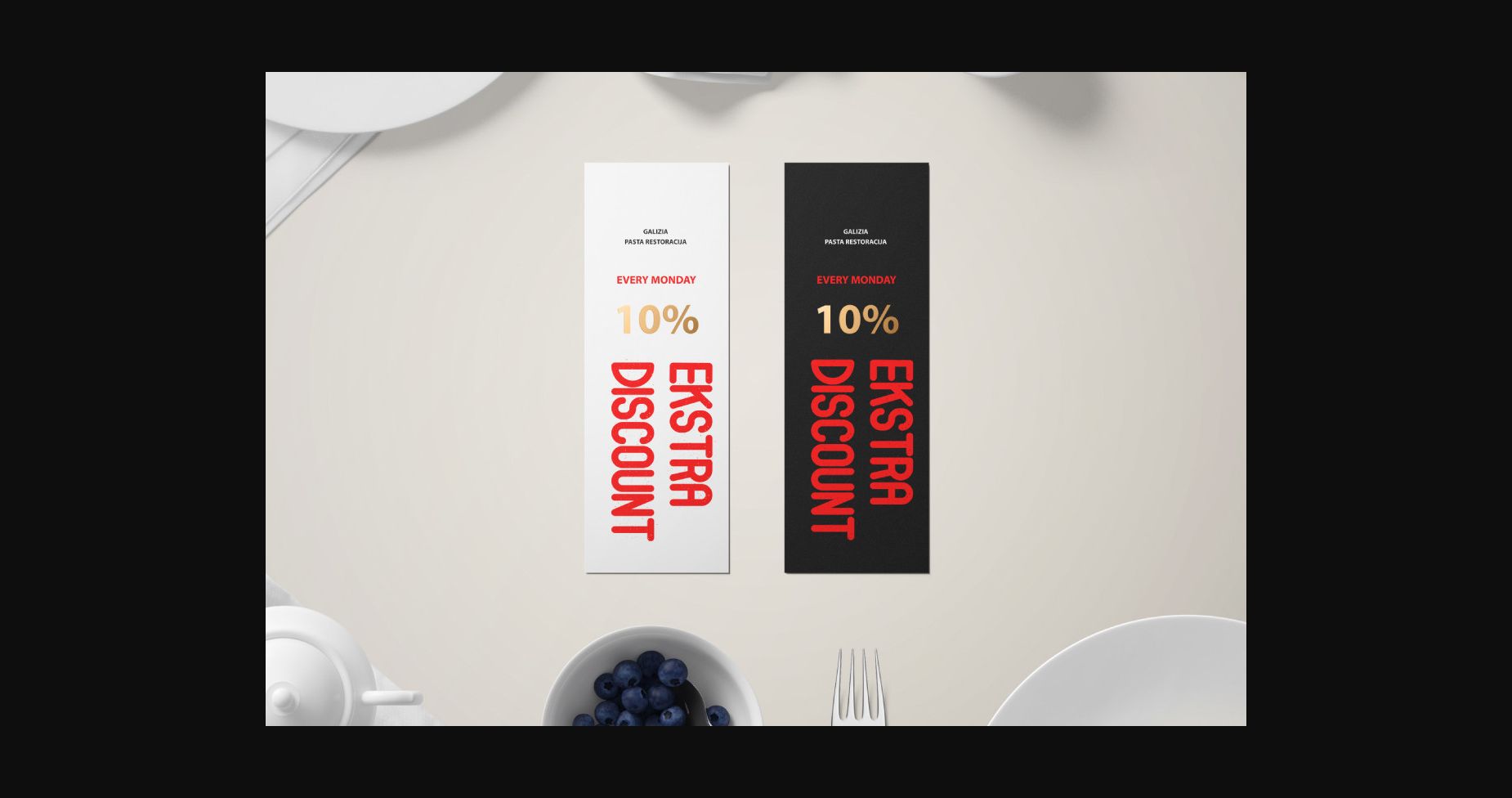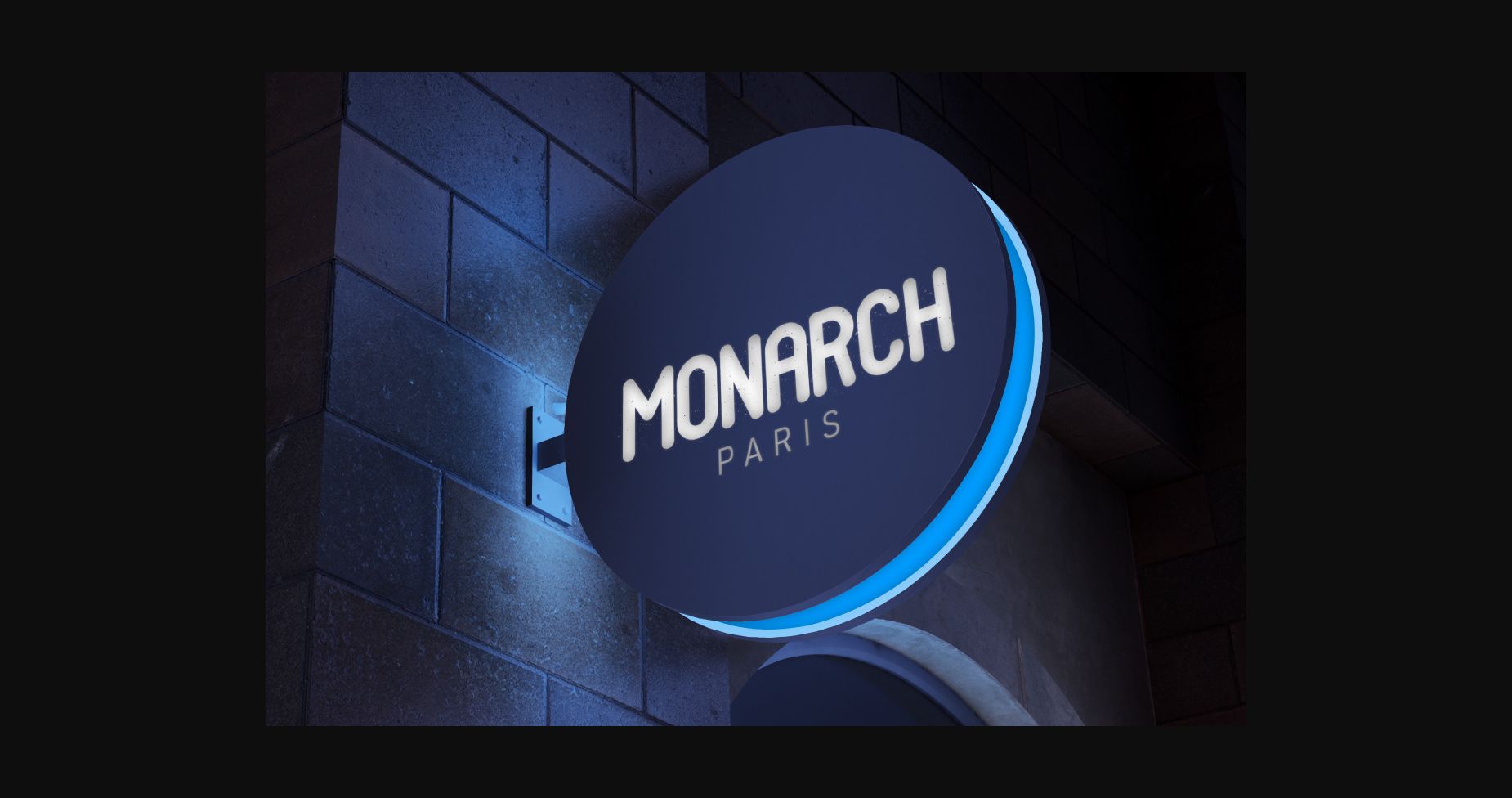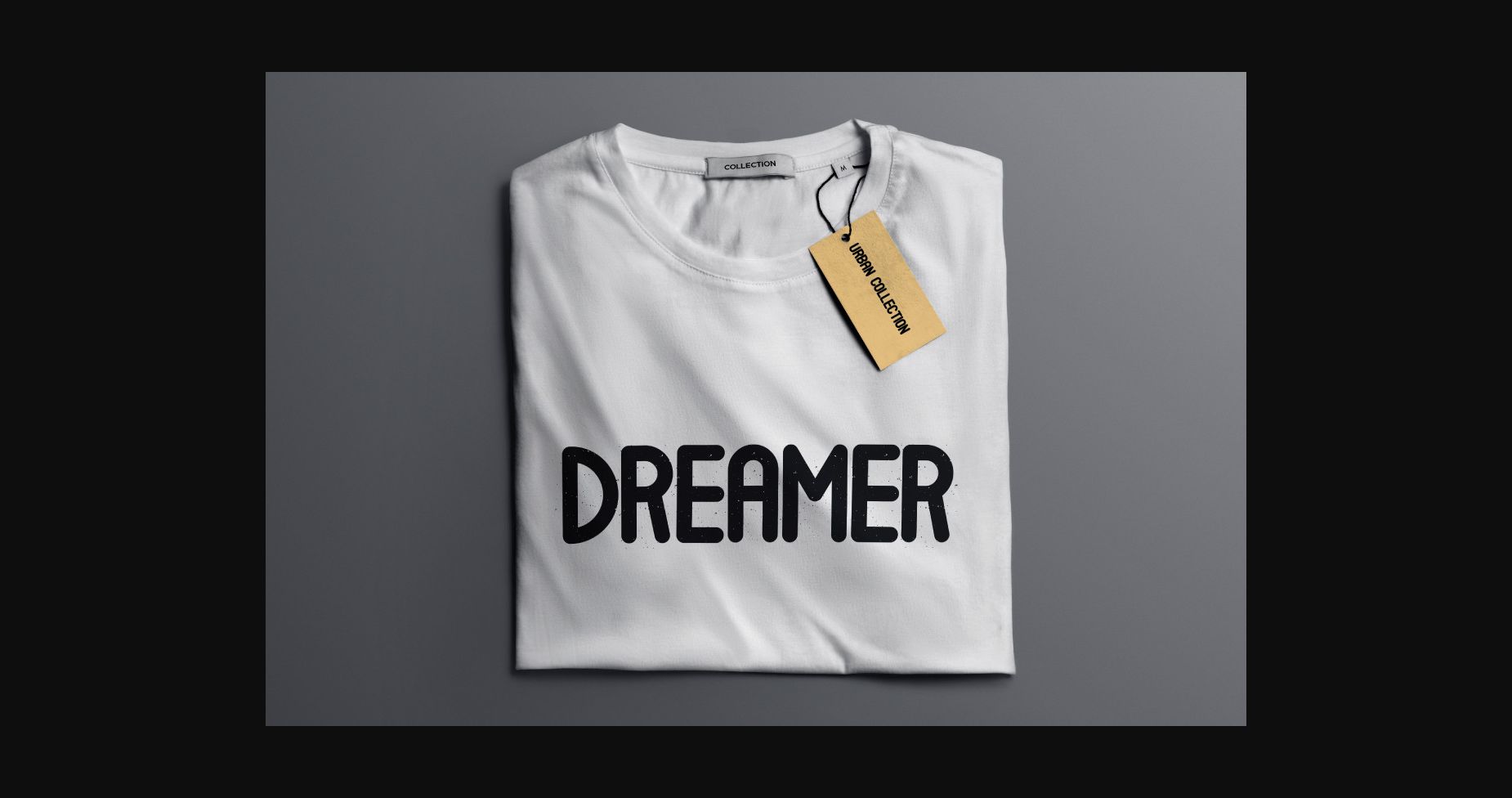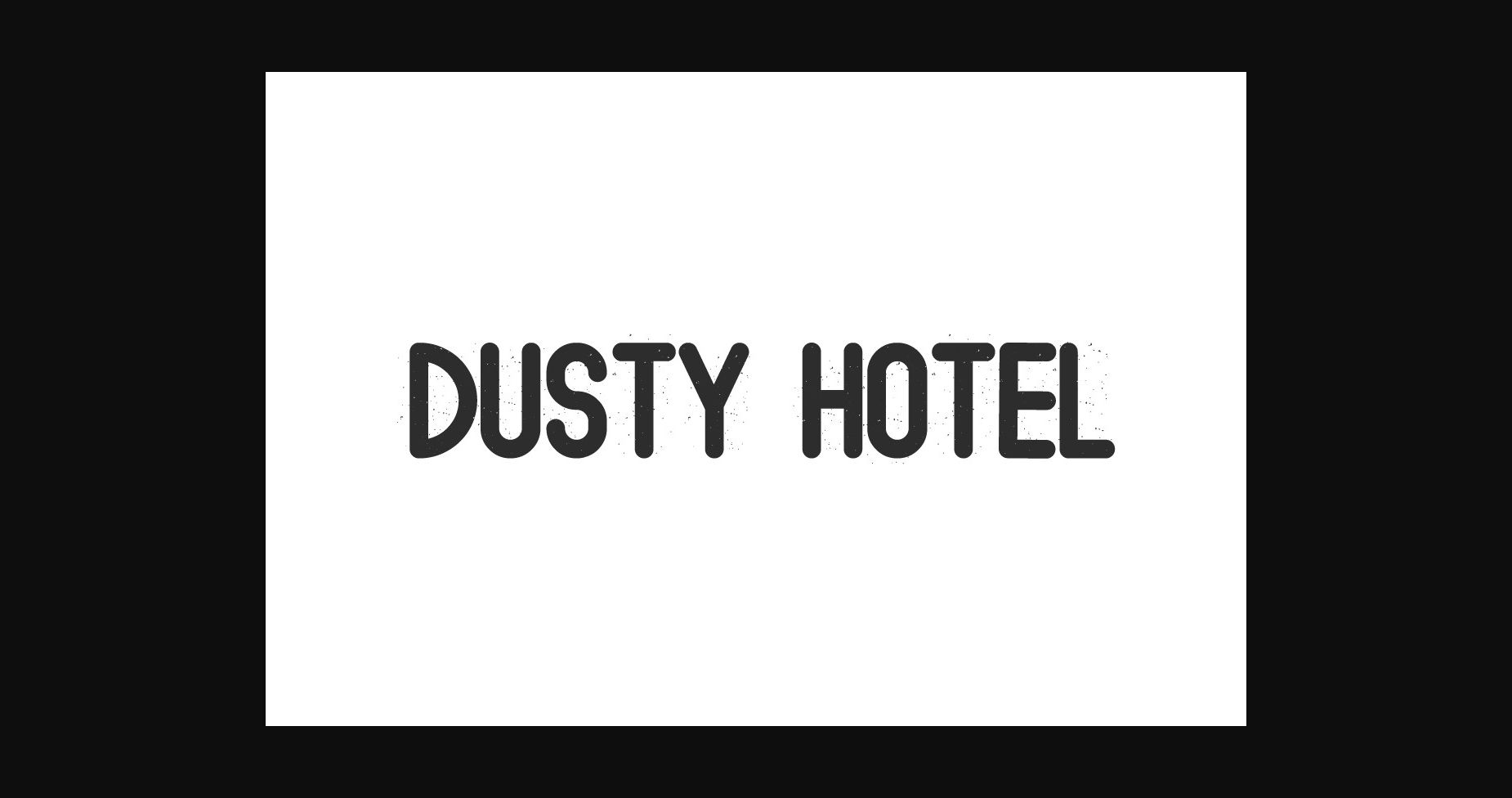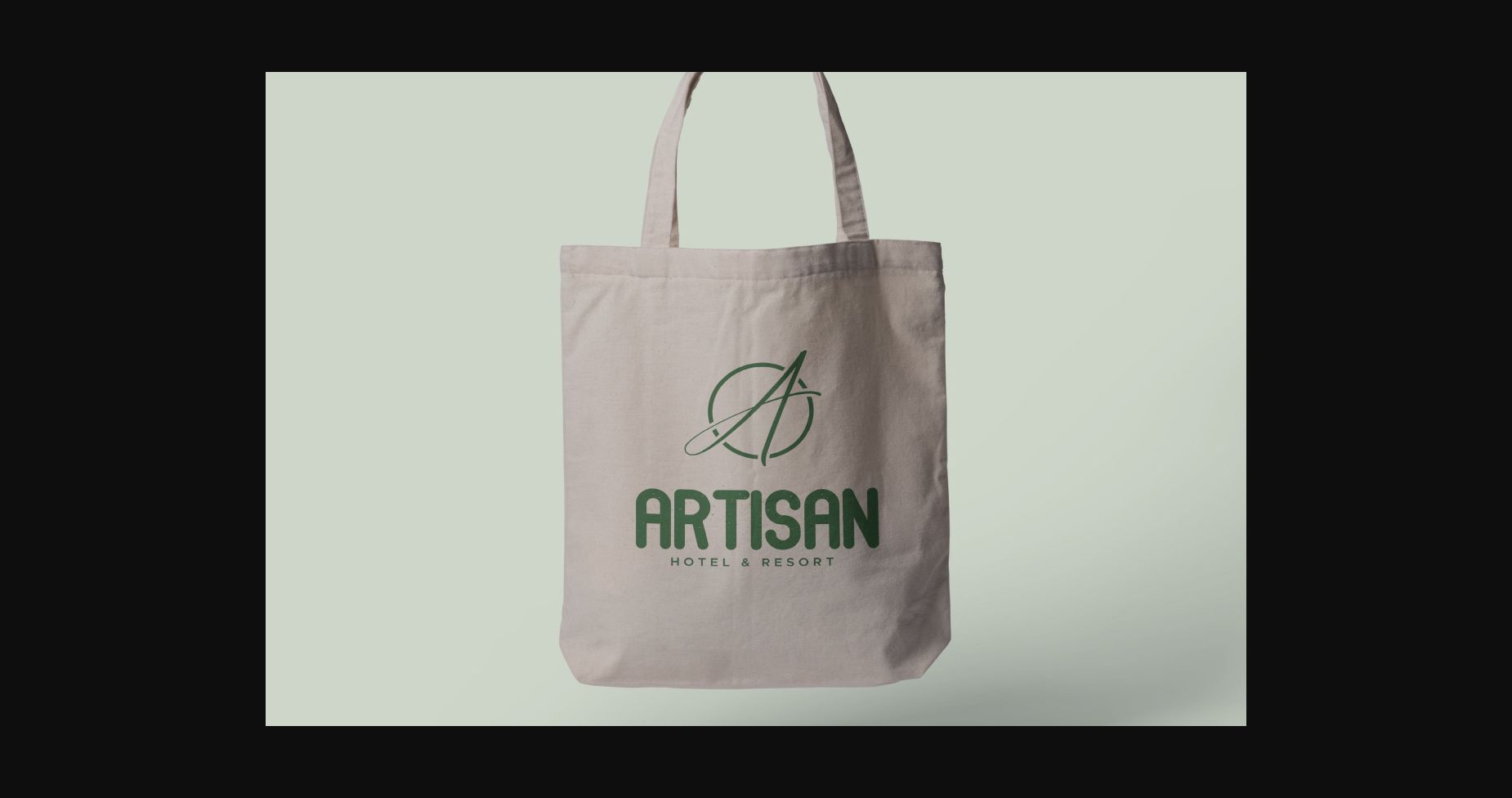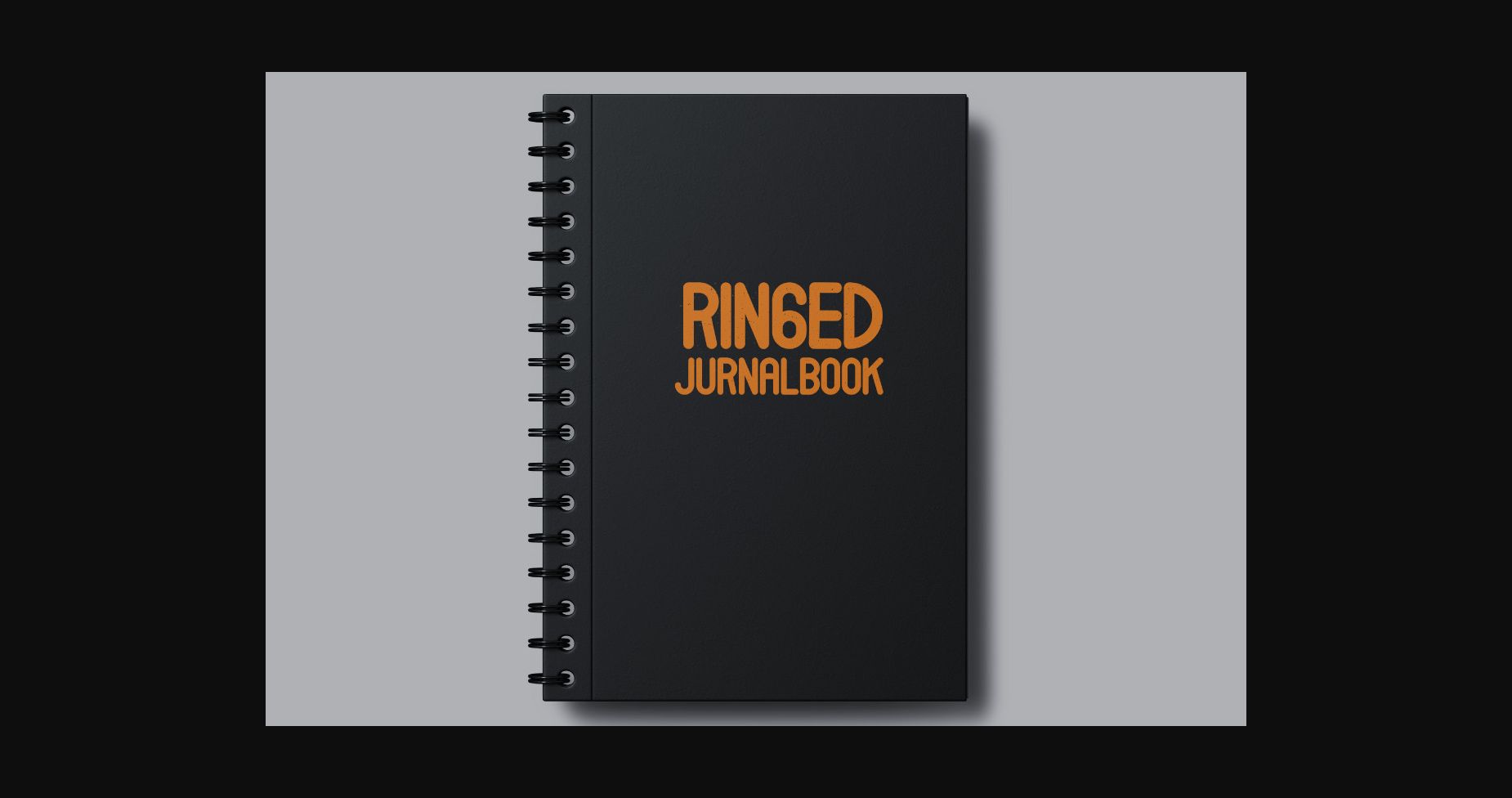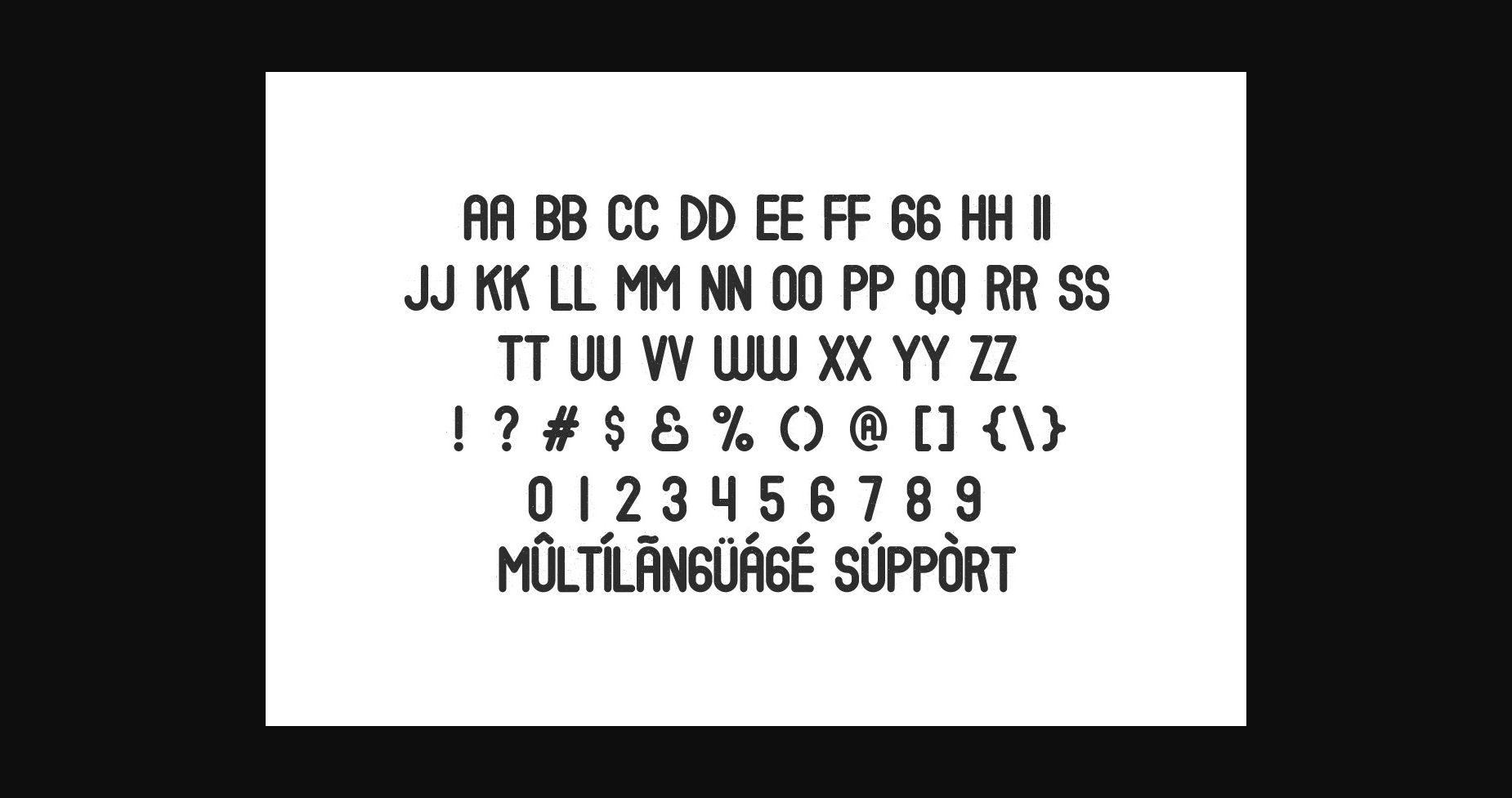
About Dusty Hotel Font
Dusty Hotel is a cool and vintage styled sans serif font. Add it confidently to your projects, and you will love the results. The only limit is your imagination.